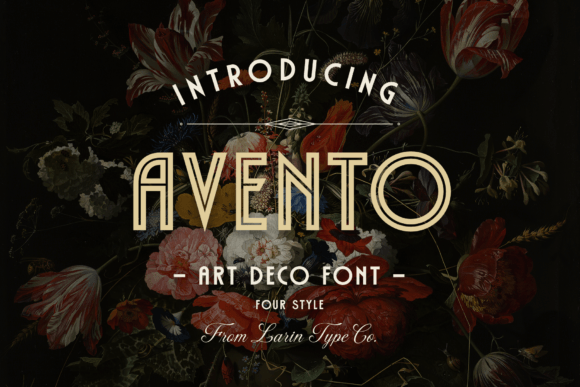
Introducing Avento Font, the ultimate vintage font that will transport you back in time to the glamorous era of the 20s-60s. Created by the talented Pasha Larin, this font is a masterpiece in the Art Deco style, perfect for adding charm, aesthetics, and a unique atmosphere to your design projects.
Avento Font is not just any ordinary font; it is a font designed specifically for heading posters. Its bold and captivating presence will captivate your audience and make your designs truly stand out. With its eye-catching styles, including regular, InLine, thin outline, and bold outline, you can easily play with the dynamics of the font and create stunning visual compositions.
What sets Avento Font apart from the rest is its extensive range of alternates. These alternates allow you to unleash your creativity and add a personal touch to your designs. Whether you want to emphasize certain letters or experiment with different styles, Avento Font gives you the freedom to do so.
Imagine the impact Avento Font will have on your branding, advertising, or website design. Its vintage appeal will instantly transport your audience to a bygone era, evoking nostalgia and creating a sense of sophistication. Your projects will become timeless masterpieces that leave a lasting impression on anyone who sees them.
But Avento Font is not just about aesthetics; it is also highly functional. Its display font family ensures that your headings and posters are clear, legible, and attention-grabbing. It strikes the perfect balance between style and readability, making it the ideal choice for any design project.